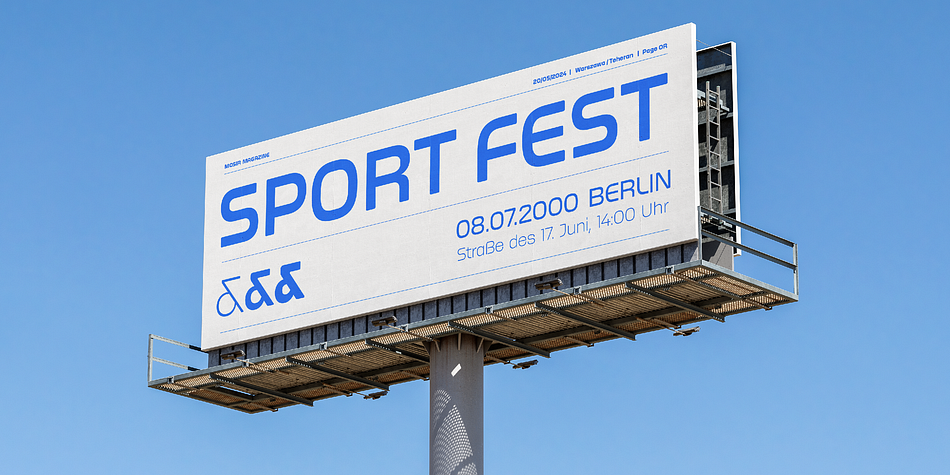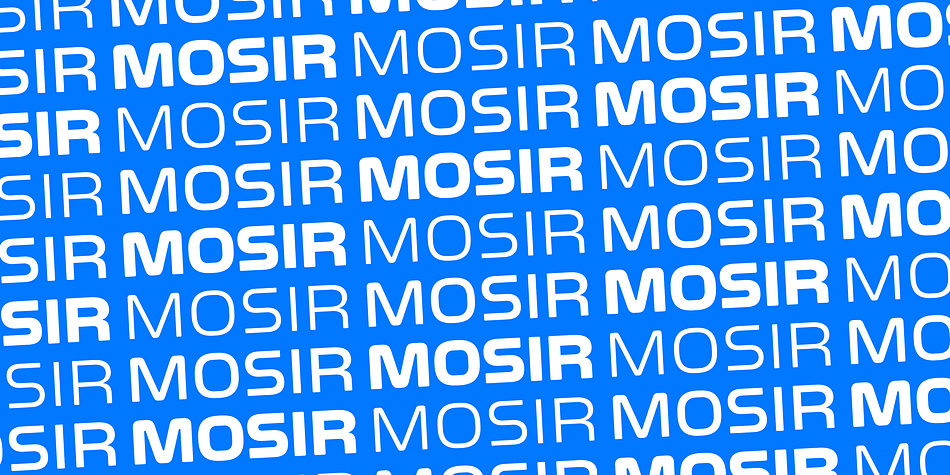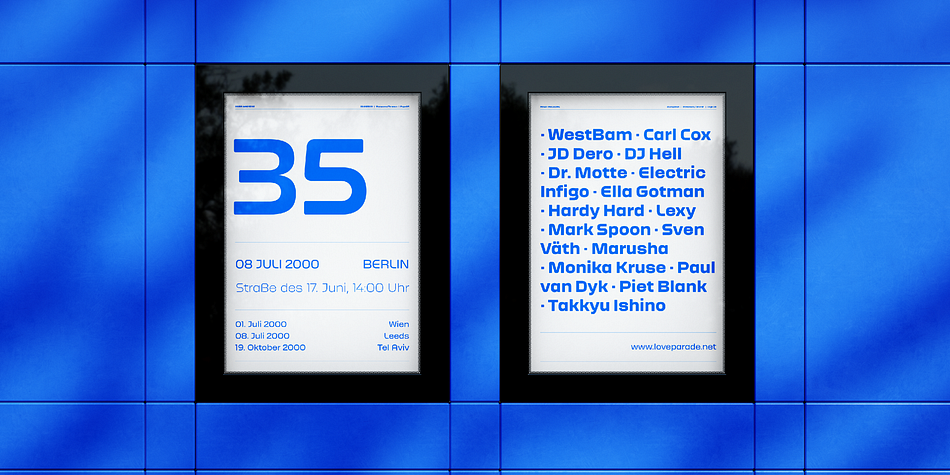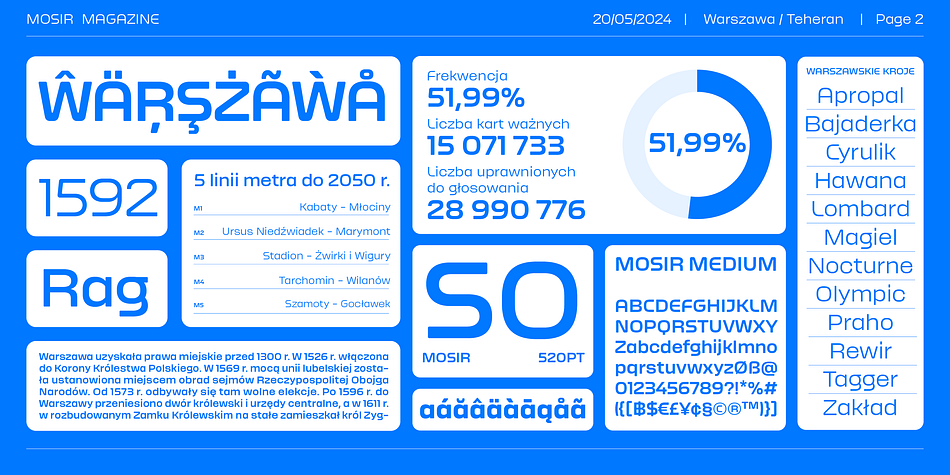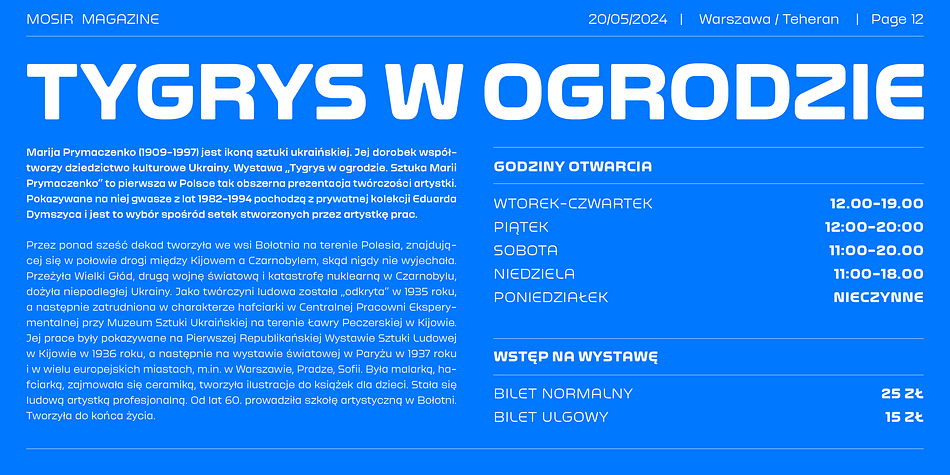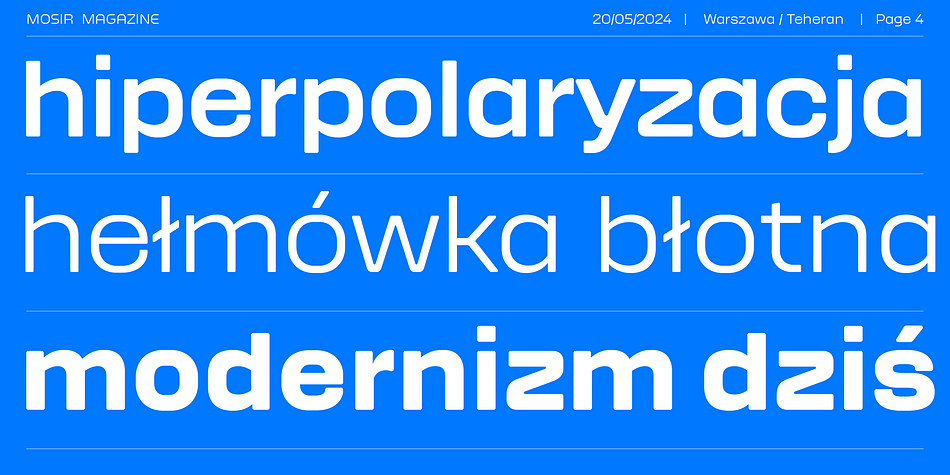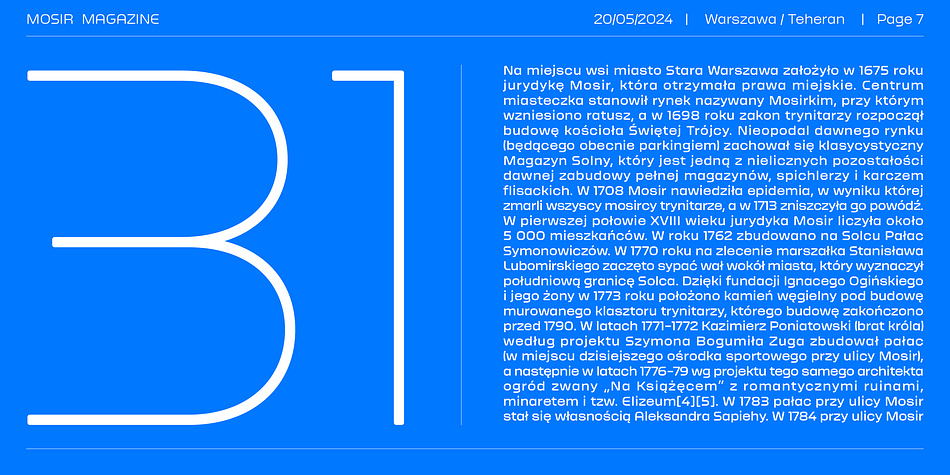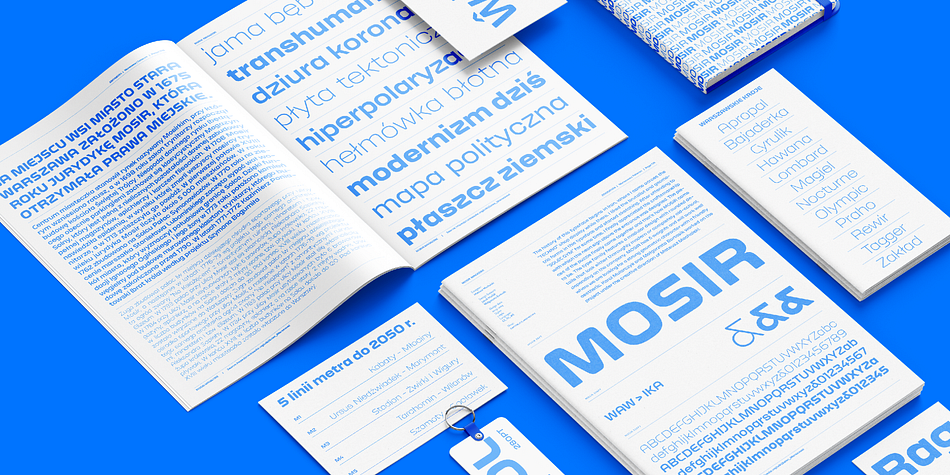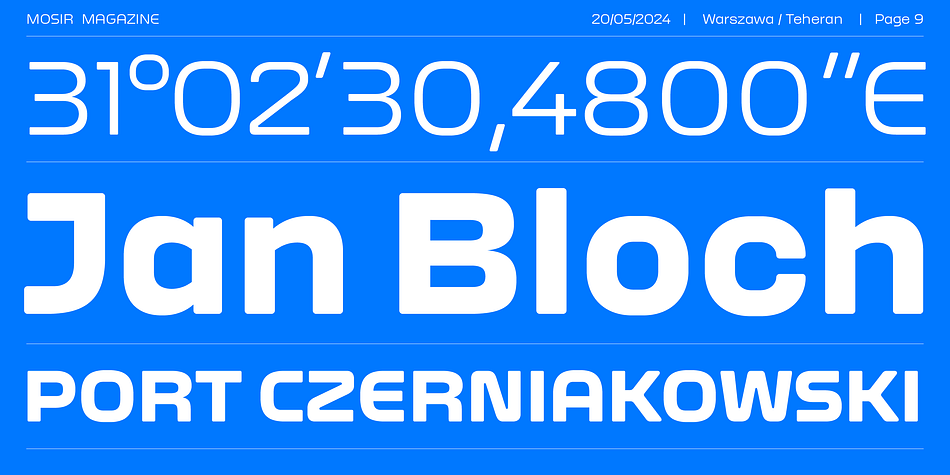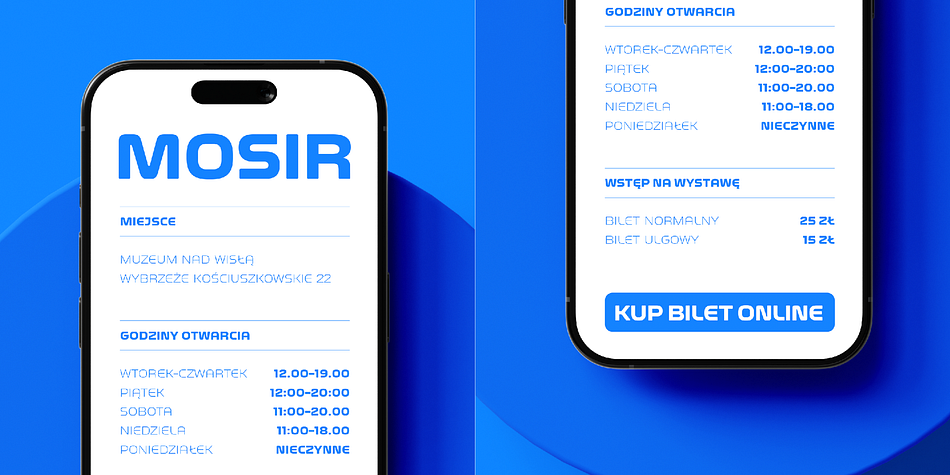
MOSIR
Designed by Mateusz Machalski, MOSIR is a sans serif font family. This typeface has five styles and was published by MACHALSKI.
The history of this typeface begins in Iran, where I came across the “TECHNO” shop display while there. I liked the brutalist and geometric forms in this typeface and started sketching. After attending to “SOLEC GYM” for some time, I finally appreciated the craftsmanship with which the neon sign above the entrance was designed. The pieces of the puzzle finally came together and that’s how MOSIR came to be. The type family features a modular design with rounded details that look either thoroughly modern or completely old-school, depending on the company. MOSIR has 5 weights and will work well where we are looking for a strong geometric character with a friendly aesthetic. Karol Mularczyk and Małgorzata Bartosik worked on the project under the creative direction of Mateusz Machalski.